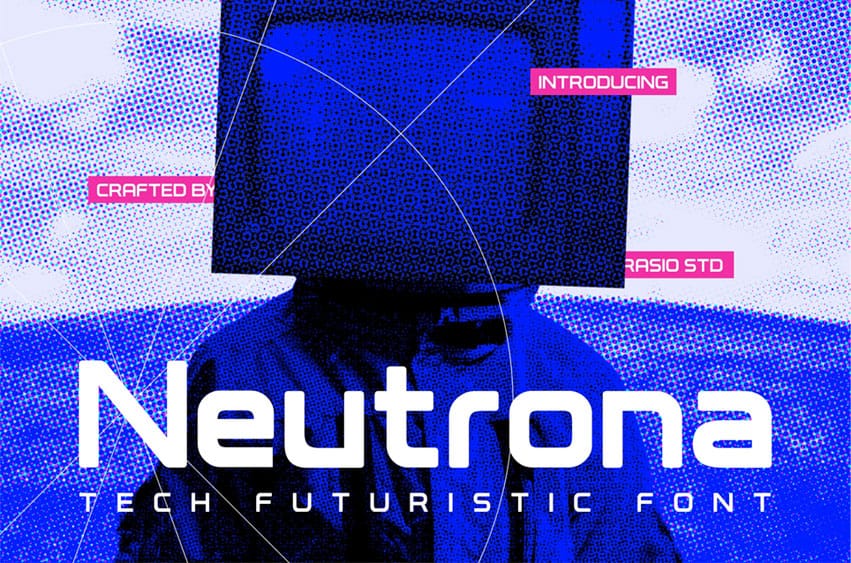
Neutrona Font is a sleek, futuristic font crafted for cutting-edge digital design. With geometric forms, soft-rounded terminals, and clean mono-linear strokes, Neutrona blends modern technology and sci-fi style into a typeface perfect for branding, interfaces, and innovation-driven projects. It includes uppercase, lowercase, numbers, and punctuation—making it highly versatile for web, print, and tech product applications. Whether you’re working on AI dashboards, gaming platforms, or space-age posters, Neutrona delivers a smart, minimalist, and forward-looking impression.
Relevance and Use Cases is perfect for AI dashboards, tech startups, software branding, futuristic UI/UX, crypto or Web3 branding, space and sci-fi posters, game UI design, product launch visuals, modern corporate pitch decks, high-tech advertising, digital product packaging, virtual reality interface, minimalist web headers.